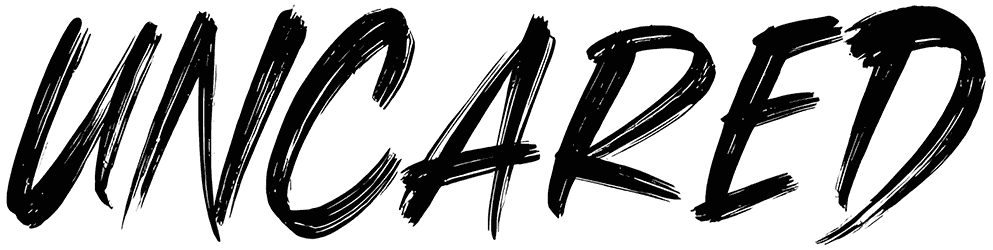
Uncared Font
Setting a modern and natural visual on your text will add a friendly and modern vibe, and surely, the present item is one of your options to do it. This brush font has a cool and urban mood that can be matched with different tastes.
Lowercase letters and numbers are not available but Uncared font will serve you well as a nice adornment for varied projects such as a bowling event invitation flyer.